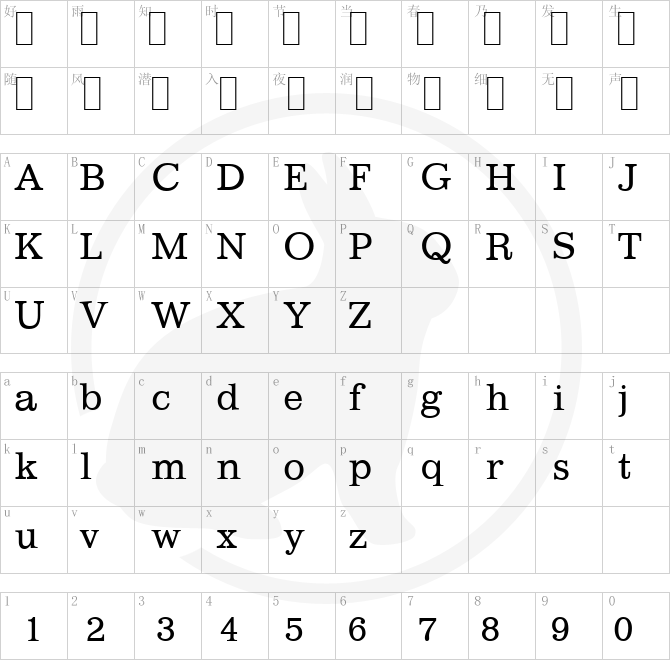
- Font Name:I770-Roman
- Full Name:I770-Roman-Regular
I770-Roman-Regular.ttf is a very beautiful artistic font, I770-Roman-Regular.ttf is widely used in the design and printing of various books and pictures,I770-Roman-Regular.ttf has a strong visual impact,I770-Roman-Regular.ttf is a commonly used font in newspapers, magazines and books, and is used in posters, e-commerce Poster design, store design, logo design, font design and other fields.I770-Roman-Regular.